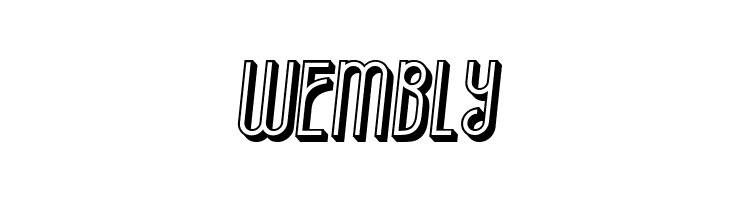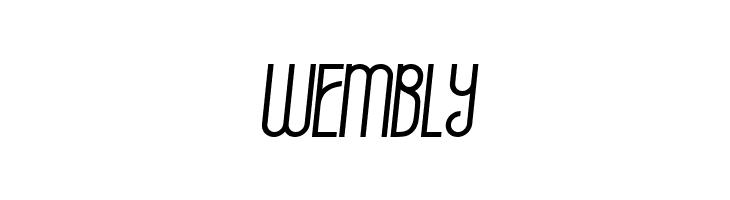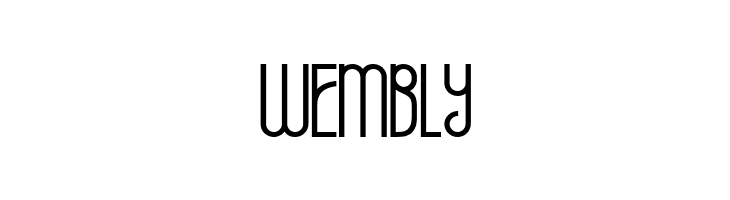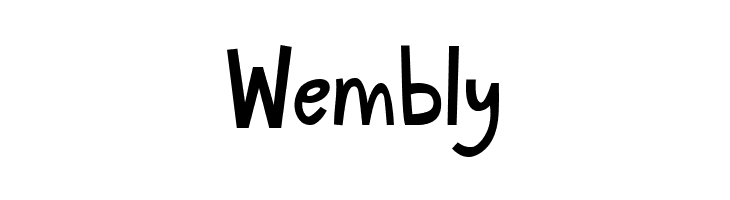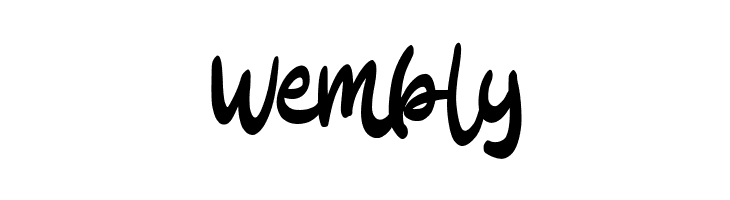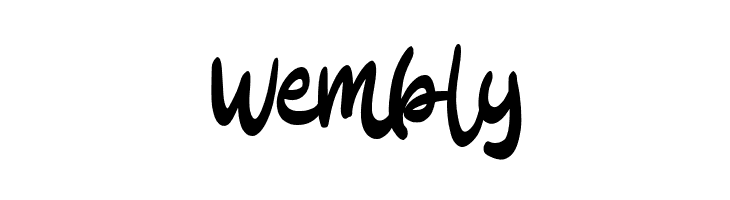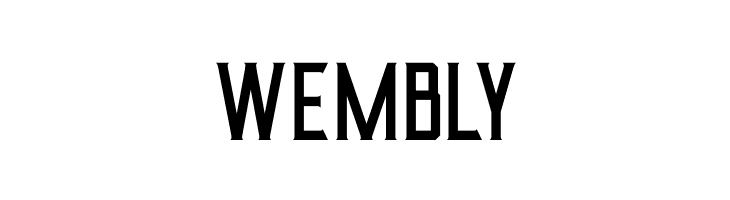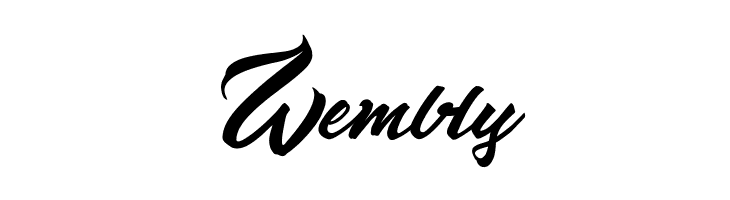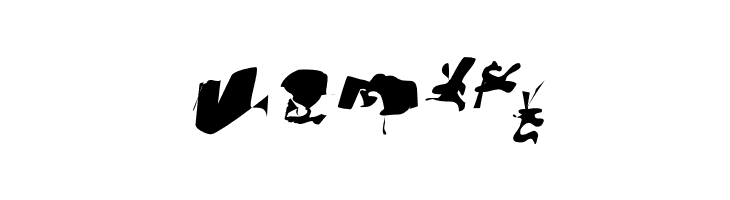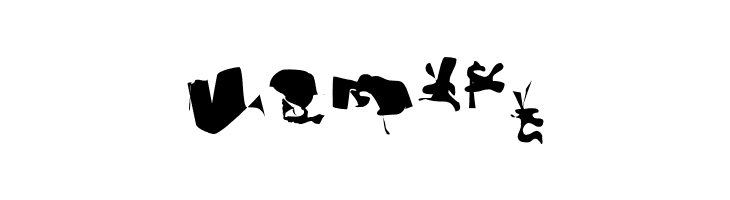
• ALPHINANDHITARegular
A modern, geometric font with bold, clean lines and a striking presence.
• Alpina
Abstract, experimental font with organic, amorphous forms.
• Alpina Oblique
An abstract, artistic font with fragmented and distorted letterforms.
• Alpine Script
A playful, casual handwritten font with smooth, flowing lines.
• Alpinet
A lively, flowing script font with elegant, cursive letterforms.
• Alpukato-DEMO
A bold, hand-drawn script font with a playful and artistic style.
• AlQalam Taj Nastaleeq-Regular
A clean, modern sans-serif font with excellent readability and uniform stroke widths.
• Already Book
A modern, elongated font with narrow characters and a sleek design.
• Already Book Italic
A modern, narrow, and slightly italic font with a retro touch.
• Already Broken Dull Demo Versio
A bold, hand-drawn font with a raw, edgy style.
• Already Broken Scratch Demo Ver
A scratchy, hand-drawn font with a rebellious and edgy style.
• Already Italic
A bold, decorative font with a 3D shadow effect, perfect for eye-catching designs.
• Already Regular
A bold, three-dimensional font with a modern geometric style.
• Alright Scrapbooky
A playful, handwritten font with a whimsical and friendly style.
• Alrighton DEMO
A bold, flowing script font with a playful and dynamic style.
• Alrobe
A dynamic and expressive handwritten font with fluid, cursive letterforms.
• Alrte FREE
A bold, flowing script font with a handwritten, interconnected style.
• AlrteFREE
A bold, cursive font with a playful and energetic handwritten style.
• Altair Bold Italic
A bold and italicized font with a modern, dynamic style.
• Altair ExtraBold
A bold, modern font with clean lines and rounded edges, perfect for impactful designs.
• Altair ExtraBold Italic